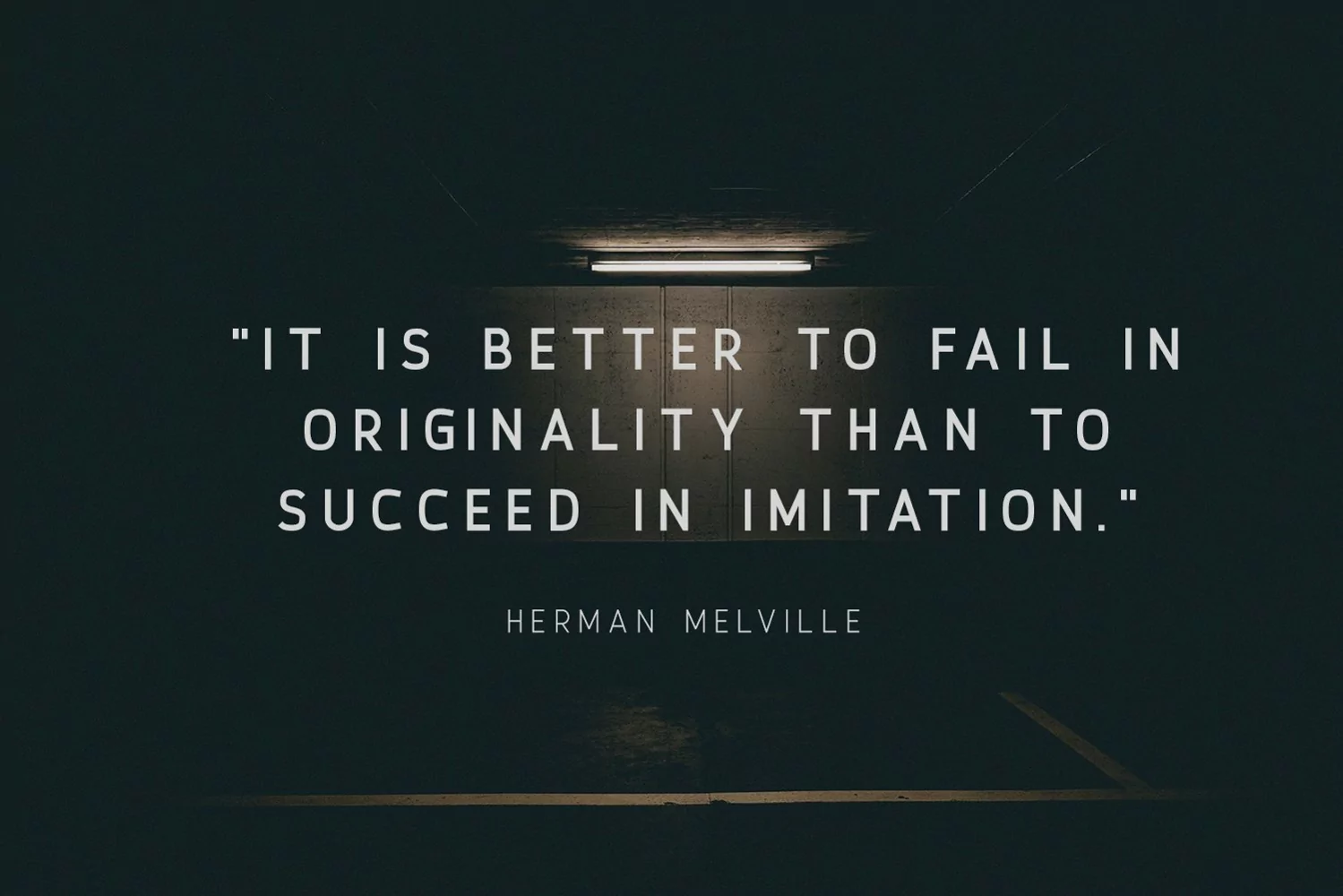
Crops - A Clean Sans Serif and minimalist character! it's perfect for logos, name card, magazine layouts, invitations, headers, or even large-scale artwork. What you get dear! You wil get: 1. Crops - A clean - Regular -, light, and bold version, sans serif font including upper & lowercase characters (ALL CAPS), numerals and more of symbols. 2. Multilingual support for various languages 3. Help File 4. Italic Version (Coming Soon & Free Update) That's it! Get cracking!! I hope you have as much fun using it as I did making it :) If you are still unsure, feel free to drop me a line, I'll try to get to you as soon as possible :) Now go ahead and Get designing already!